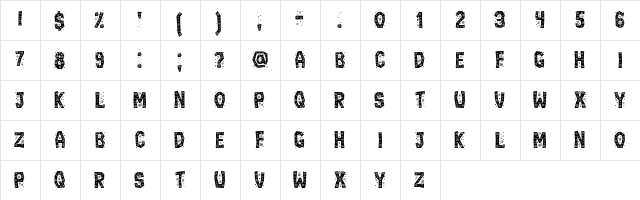
Ignorant Regular
Design Context for Ignorant Typeface
Ignorant is a composed and adaptable typeface that performs quietly and consistently across a wide range of design contexts.